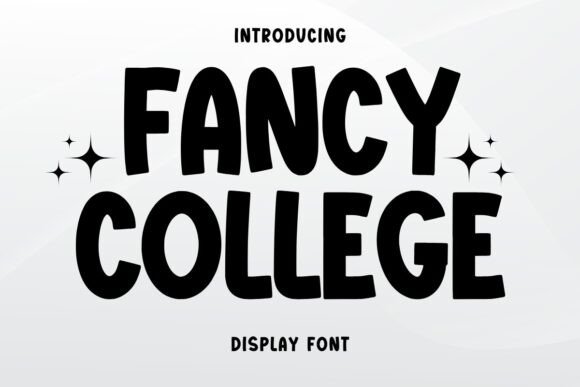
Fancy College Font: Elevate Your Designs with a Touch of Elegance and Boldness
In the realm of typography, few fonts manage to capture the essence of both elegance and boldness as effectively as Fancy College. This irresistibly cute and audaciously bold display font has been making waves in the design community, and for good reason. Fancy College is not just a font; it’s an experience. It’s a statement. It’s a game-changer. In this article, we’ll delve into the world of Fancy College, exploring its unique characteristics, the transformative power it holds for your designs, and why it stands out as a beacon of inspiration in the vast sea of typeface designs.
What is Fancy College Font?
Fancy College is a display font that exudes a sense of freshness and boldness, making it perfect for designers looking to add a touch of uniqueness to their projects. Its distinctive style is characterized by its elegant lines, cute aesthetic, and audacious boldness, which collectively contribute to its irresistible charm. Whether you’re working on a branding project, a website design, or marketing materials, Fancy College has the potential to elevate your work from ordinary to extraordinary.
Applications of Fancy College in Design
The versatility of Fancy College is one of its most compelling attributes. This font can be seamlessly integrated into a wide array of design projects, including but not limited to:
- Branding and Logos: Use Fancy College to create a memorable brand identity that stands out from the competition.
- Website Design: Enhance your website’s aesthetic appeal with Fancy College, making it more engaging for visitors.
- Marketing Materials: From brochures to billboards, Fancy College can add that distinctive touch your marketing materials need.
- Social Media Graphics: Make your social media posts stand out with the bold and elegant look of Fancy College.
- Packaging Design: Add a touch of elegance and boldness to your product packaging, making it more appealing to potential customers.
The Inspiration Behind Fancy College
Fancy College is more than just a font; it’s a form of artistic expression. Its design draws inspiration from the need for uniqueness and individuality in the digital age. The creators of Fancy College aimed to craft a font that not only captures attention but also inspires creativity and positivity. The result is a font that embodies the beauty of typeface design, offering a fresh perspective on what a display font can achieve.
The beauty of Fancy College lies in its ability to blend aesthetic appeal with functionality. It’s not just about making a statement; it’s about doing so in a way that’s both elegant and bold. This balance is what sets Fancy College apart, making it a valuable tool for designers looking to push the boundaries of their work.
The Transformative Power of Fancy College
The impact of Fancy College on your designs cannot be overstated. This font has the power to transform your work in several ways:
- Enhanced Visual Appeal: Fancy College adds a touch of elegance and boldness, making your designs more visually appealing.
- Increased Engagement: The unique and captivating style of Fancy College can engage your audience more effectively, encouraging them to interact with your content.
- Distinctive Brand Identity: By incorporating Fancy College into your branding, you can create a distinctive identity that sets you apart from competitors.
- Creative Freedom: The versatility of Fancy College gives you the creative freedom to experiment with different design concepts, pushing the boundaries of your creativity.
Fancy College is more than just a font; it’s a design experience. Its unique blend of elegance, boldness, and inspiration makes it a valuable tool for designers looking to elevate their work. Whether you’re aiming to create a distinctive brand identity, enhance your website’s aesthetic appeal, or simply add a touch of uniqueness to your designs, Fancy College is your perfect partner. Experience the transformative power of this extraordinary font and let Fancy College redefine your design aesthetics.